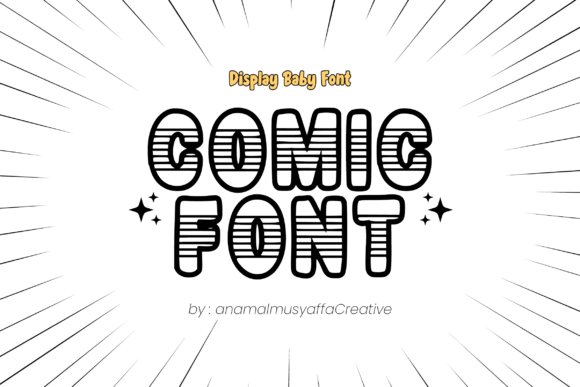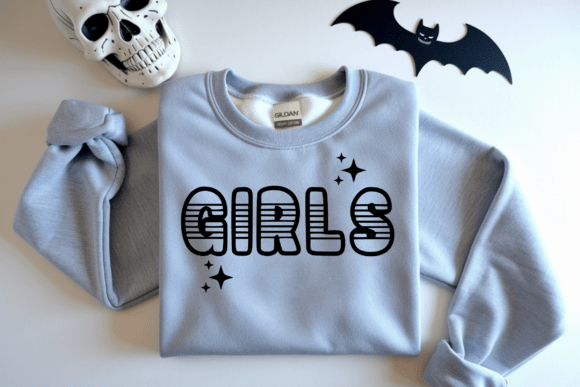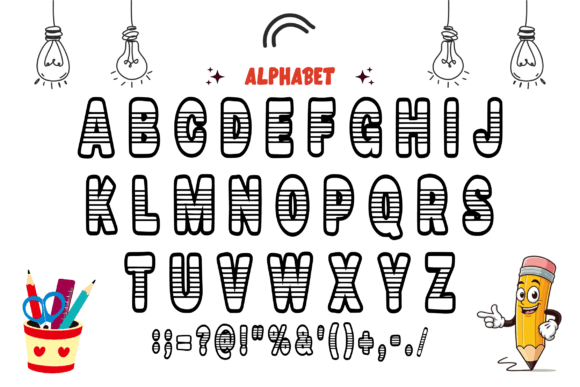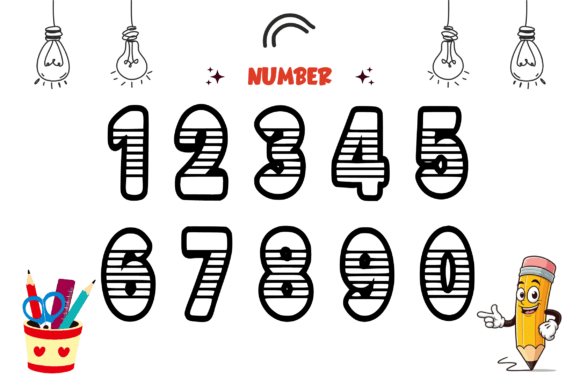
Introduction to Outline Style Font
Do you remember that moment when a spark of creativity hits you, and you can’t wait to bring your idea to life? For designers, it’s that instant when the perfect font can make all the difference. And if you’re looking for a stylishly innovative font that exudes modern charm, look no further than the Outline Style Font. Its comic-inspired design, characterized by continuous lines, makes it an absolute delight to work with.
As a valuable design resource, the Outline Style Font offers a high-quality option for your creative project. Its versatility shines when used for sublimation designs, animations, and comic titles, enhancing visual engagement and breathing life into every frame. Plus, with a free download available, you can easily incorporate this design element into your next project. Whether you’re working on a design project or need a unique font for your animations, the Outline Style Font is an excellent choice.
- Unique outline style design that adds a creative touch to any project or presentation.
- Perfect for use in logos, icons, graphics, and other design elements where a bold, high-contrast design is desired.
- ✨ The outline style adds a modern touch to any text, making it perfect for titles, headings, and other prominent design elements.
- ⚠️ The font may not be suitable for small text sizes due to its outline style.
- ⚠️ Some users may find the font too minimalist, which could limit its use in certain design contexts.
Outline Style Font is perfect for creating high-quality designs for creative projects, such as logos, posters, and infographics. It’s also a great design resource for creating visually appealing text overlays for videos and presentations.